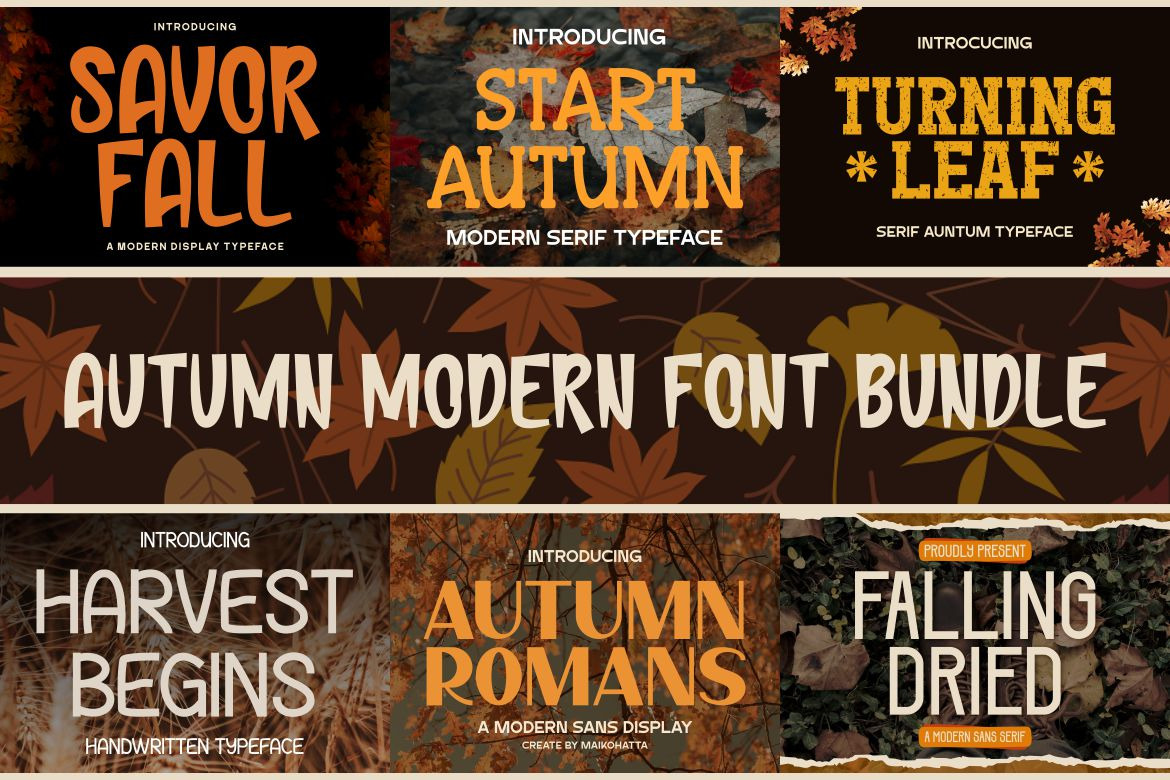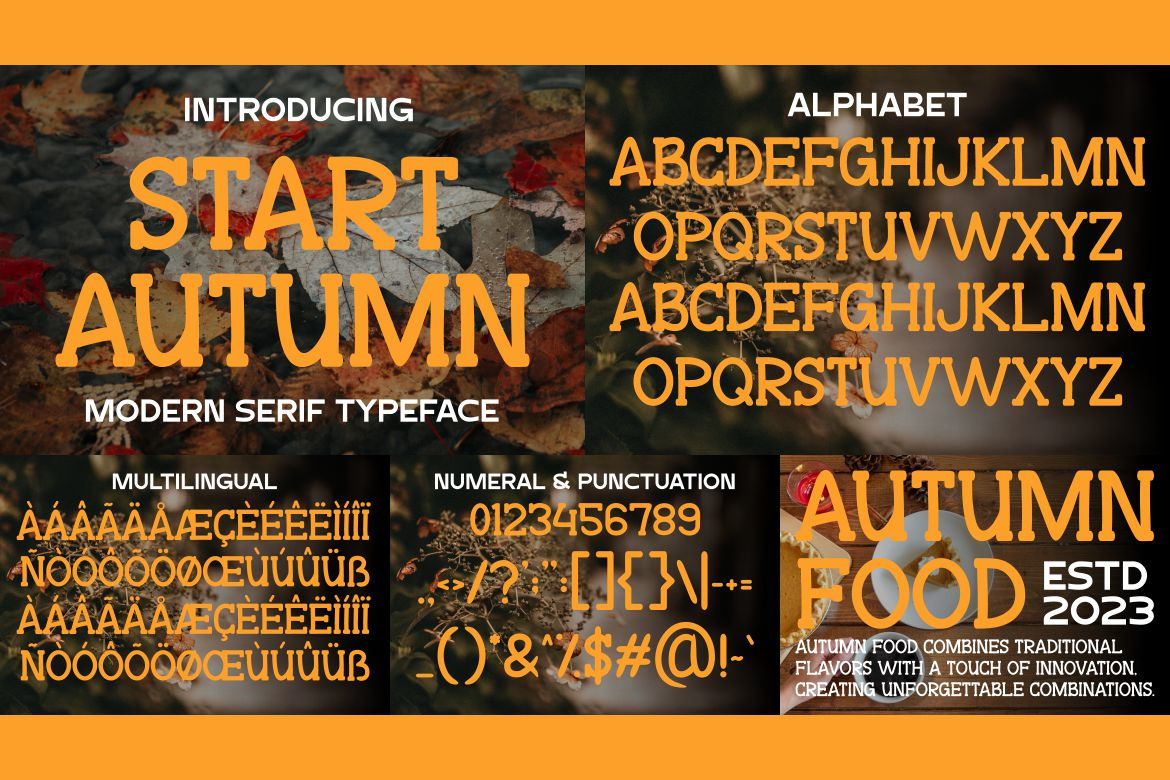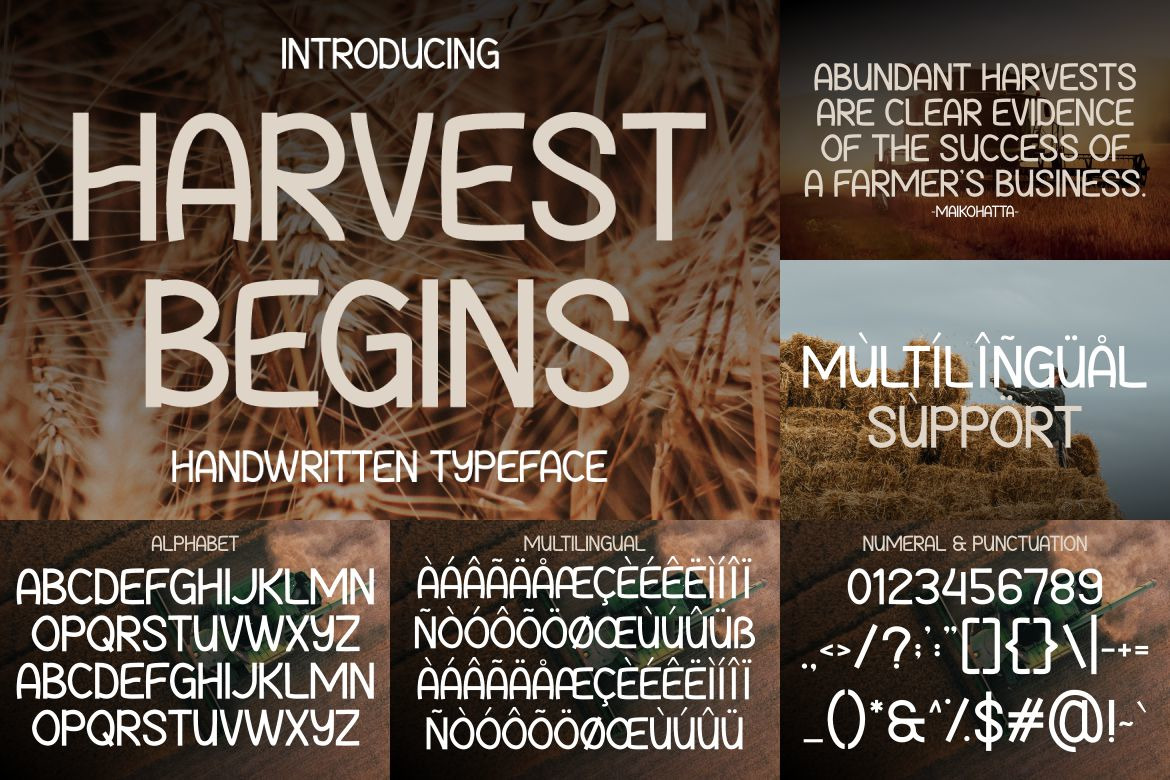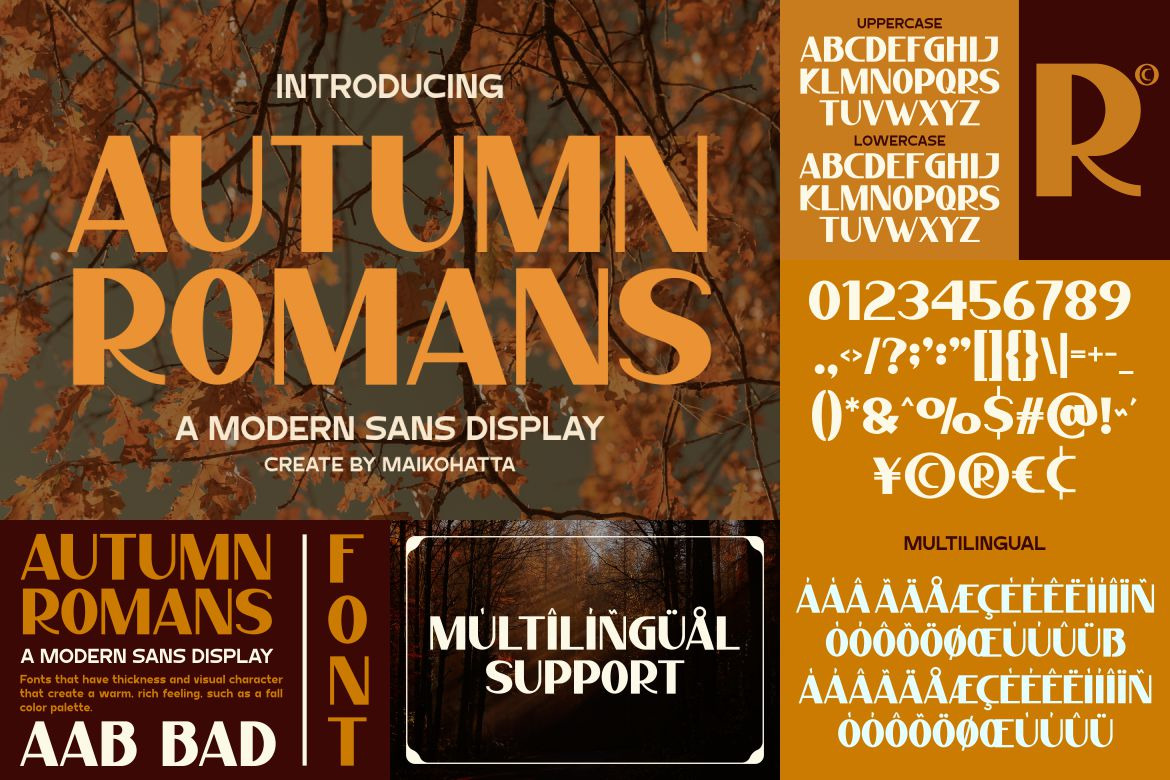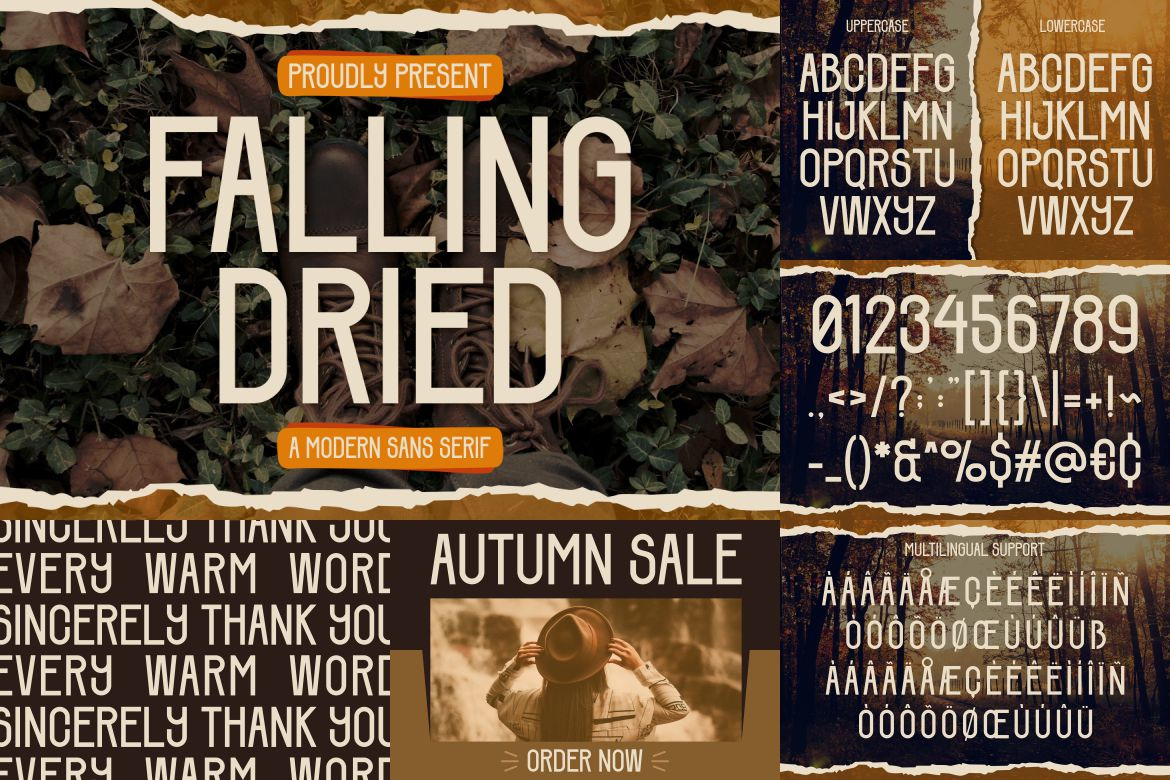
Autumn Modern Font Bundle
Introducing our new product **Autumn Modern Font Bundle**
This font features a style that creates a warm sense of nostalgia and recalls the natural wonder as leaves change colors. Delicate lines and gentle curves add dimension to the letter characters, creating an impression of softness and tranquility.
This font is highly suitable for projects that aim to depict the beauty and charm of the autumn season. It works well for designs such as invitations, greeting cards, posters, and other creative projects, imparting a stunning natural touch and infusing the captivating ambiance of the fall season into every design.
* Multilingual ( Start Autumn, Turning Leaf, Harvest Begins, Autumn Romans, Falling Dried )